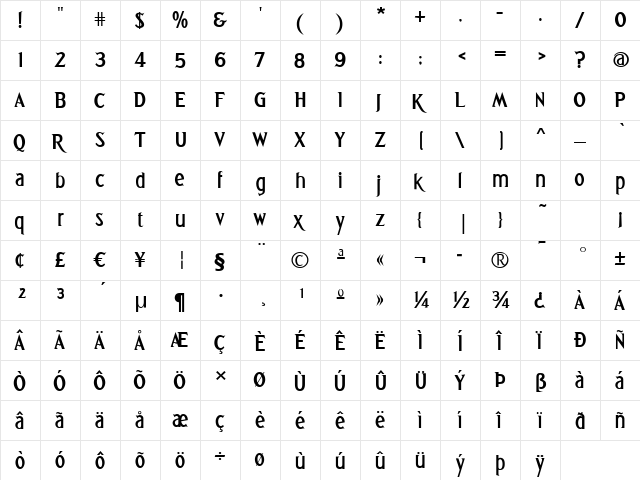
Greetings Bold Regular Font Preview
Greetings Bold Regular
Greetings Bold Regular Font Details
Design Context for Greetings Bold Typeface
Greetings Bold takes a measured approach to typography — its balanced proportions and neutral character make it a reliable workhorse for both digital and print work. The heavy weight commands attention and anchors typographic hierarchies.